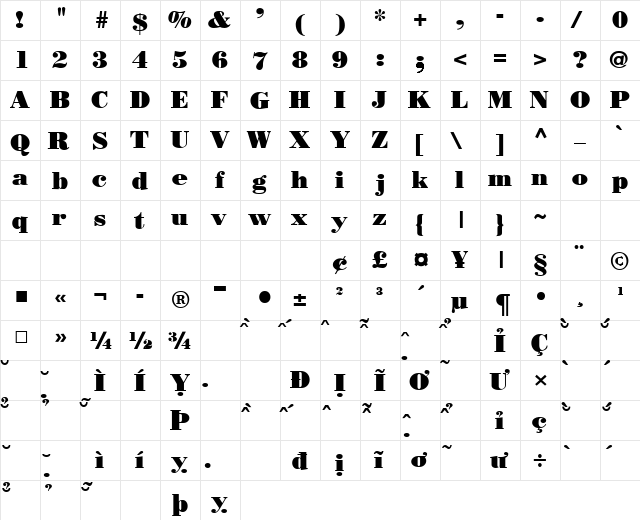
VNI-Bodon-Poster Extra Bold
Design Context for VNI-Bodon-Poster Typeface
VNI-Bodon-Poster is a composed and adaptable typeface that performs quietly and consistently across a wide range of design contexts. The heavy weight commands attention and anchors typographic hierarchies.